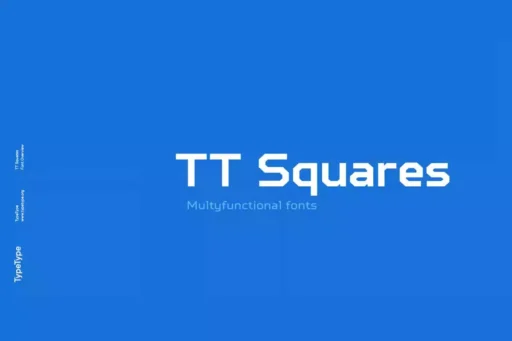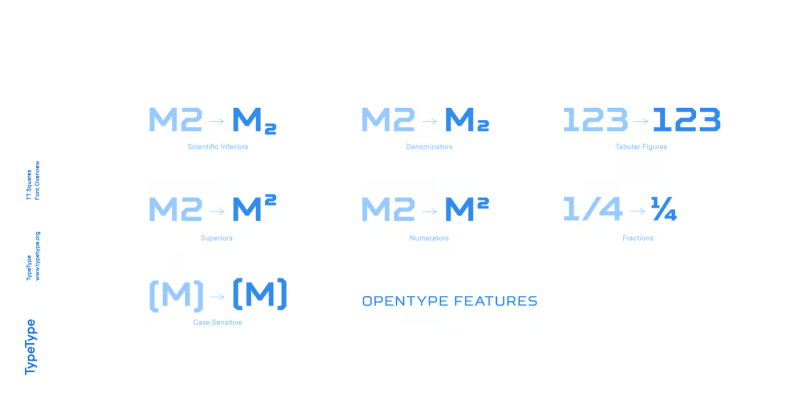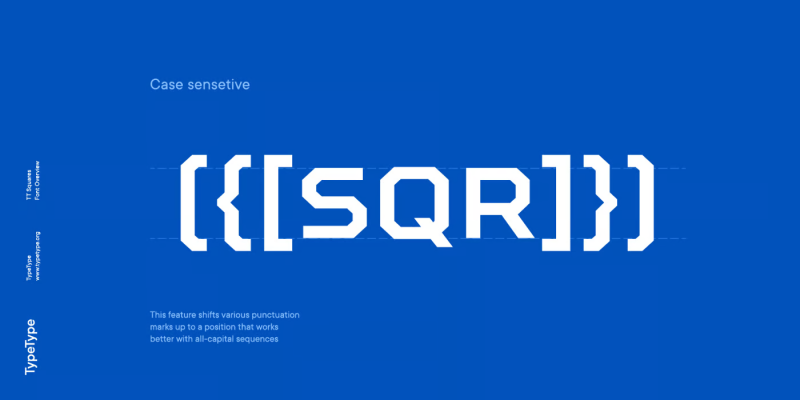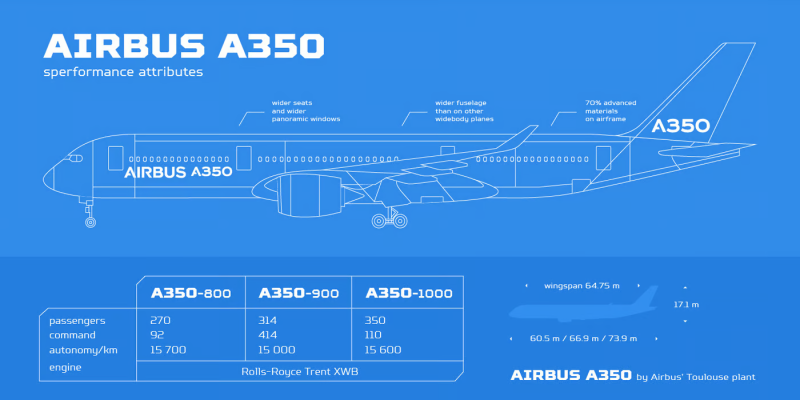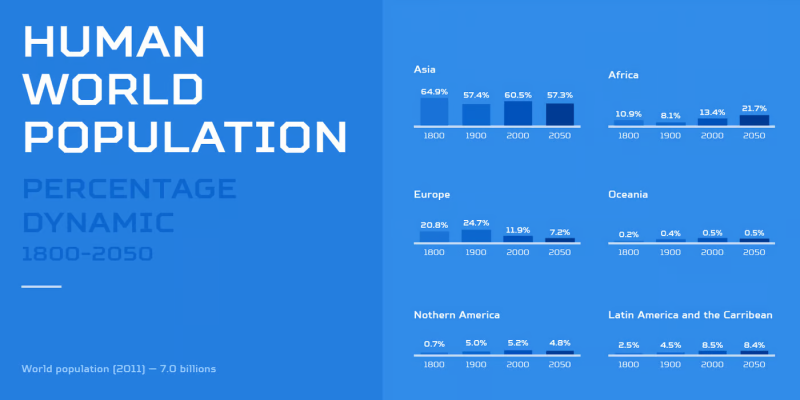
TT Squares Font
TT Squares font is a fresh and highly practical typeface by TypeType, designed to meet the challenges of accompanying abstracts, graphs, and diagrams, among other forms of visual content. Featuring the elements of the future and techno, TT Squares will add a touch of elegance and modernity to your designs. It will be perfect for up-to-date projects that need style and legibility.
This typeface is based on a very stable and recognizable typeface structure, which includes a large set of styles. TT Squares font family includes Thin, Light, Regular, Bold, Black, and all their Italic versions. These options are quite diverse and give designers the possibility to make their projects more flexible and diverse – from the striking titles to the clear and elegant text. Squares is particularly suitable for short inscriptions that need much emphasis on visuals and for large texts that need unified design.
The font has been fine-tuned to meet contemporary usage needs and is fully compatible with various technologies. TT Squares is suitable for websites, mobile apps, and all other forms of print materials while still being easy to understand and eye-catching in any format. It’s flexible and minimalist, which makes it perfect for designing beautiful content that is easy to read and looks great.
TT Squares Font is a Display Fonts font that brings a professional and versatile look to your projects. TT Squares font is a fresh and highly practical typeface by TypeType, designed to meet the challenges of accompanying abstracts, graphs, and diagrams, among other forms of visual content.